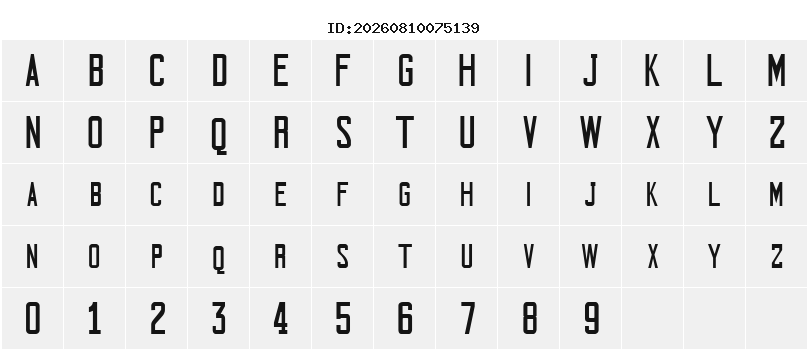
• Font Name: PLACAS MATRICULA ESPAnA1970
PLACAS MATRICULA ESPAnA1970.ttf is a modern, elegant sans-serif font designed for ultimate readability and visual harmony. Perfect for branding, headlines, web design, and print materials.